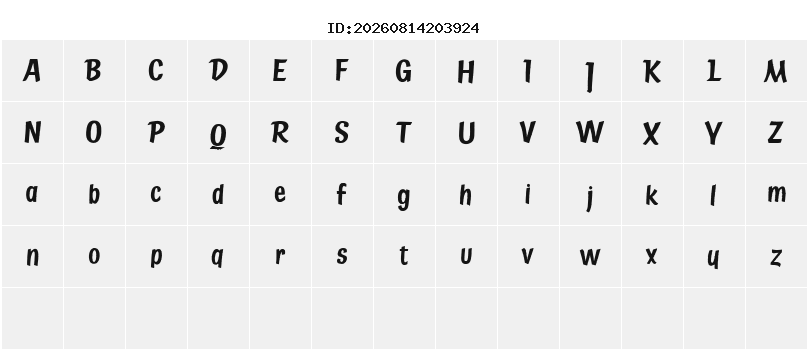
• Font Name: State Bridge
• Manufacturer: Paulo W
About State Bridge.ttf
State Bridge.ttf is a modern, elegant sans-serif font designed for ultimate readability and visual harmony. Perfect for branding, headlines, web design, and print materials.